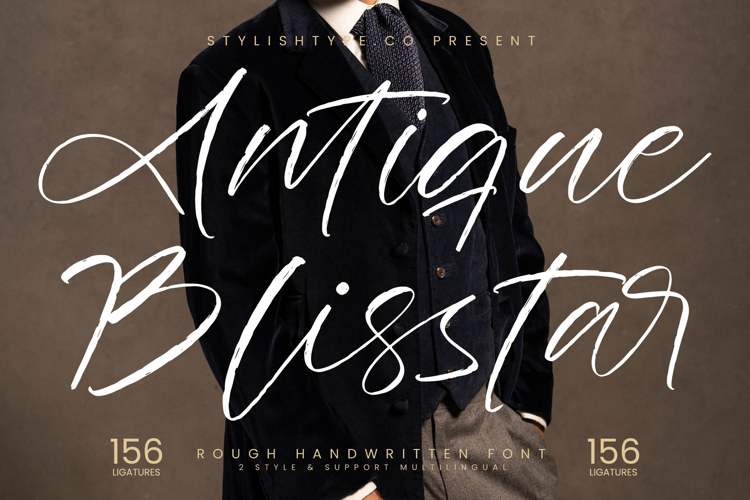
Antique Blisstar - Rough Handwritten Font
Unveil the distinctive charm of Font Antique Blisstar - Rough Handwritten Font Script, a captivating typeface that expertly merges raw authenticity with undeniable elegance. This expressive script font embodies handcrafted appeal through its naturally flowing strokes and a distinctive, organic texture. Its dynamic character forms effortlessly evoke a touch, imbuing designs with warmth and a refined artistic flair.
Elevate your visual storytelling with the unparalleled sophistication of Font Antique Blisstar - Rough Handwritten Font Script. Its versatile design, boasting a strong high-contrast and 156 ligatures, offers rich typographic control. This font is perfect for luxury branding, bespoke packaging, impactful editorial design, and distinctive apparel graphics, ensuring your projects achieve memorable distinction.
Unleash your creativity globally, thanks to the exceptional readiness of this font. With its extensive multilingual support, Font Antique Blisstar - Rough Handwritten Font Script adapts seamlessly across global markets, making it incredibly versatile for international projects. This ensures your message maintains its aesthetic integrity and professional impact, regardless of language, expanding design possibilities worldwide.